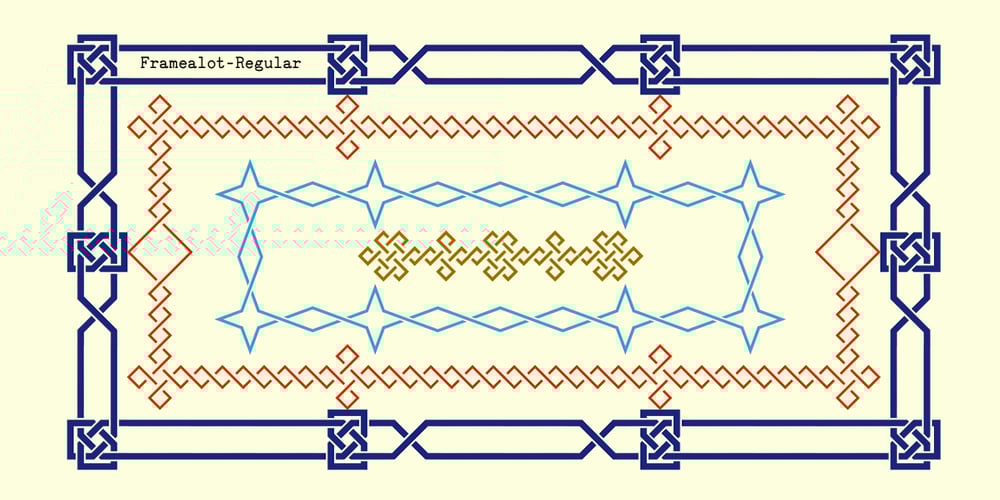
Framealot
Framealot font
Framealot Font Family was designed by Robert Schenk and published by Ingrimayne Type. Framealot contains 3 styles and family package options. Framealot is a frame or border or page divider construction kit. By choosing and mixing various elements, a wide variety of different geometric borders or frames or dividers are possible. The largest set is on the upper-case keys. There are two other sets on the lower case keys (plus the comma and period.) The characters above the number keys (the whole top row with shift, plus {}| keys are another set. And there are a couple of other small sets. Not all the sets allow vertical dividers. Outlined versions are available on the outline style, and the filled style either inverts the pattern or removes white interior sections for the outline version (and has some other differences compared to the other two versions). Use a character map to find all the parts of a set, type them out on your document, and then copy and paste to construct your border or frame. Have fun with it!